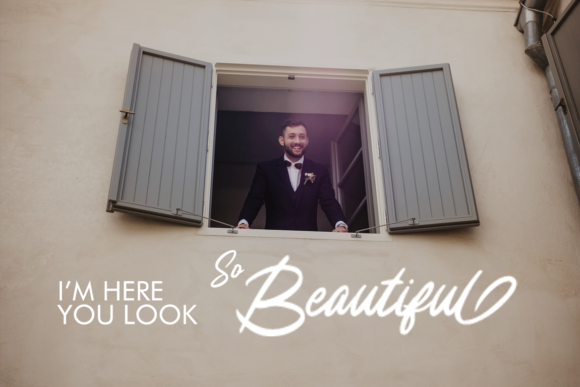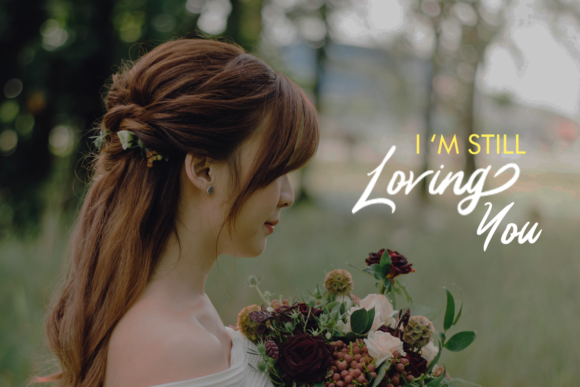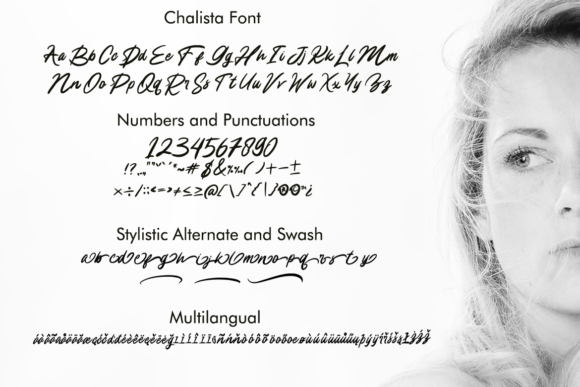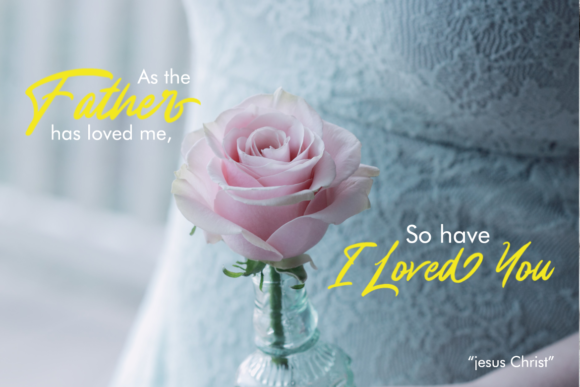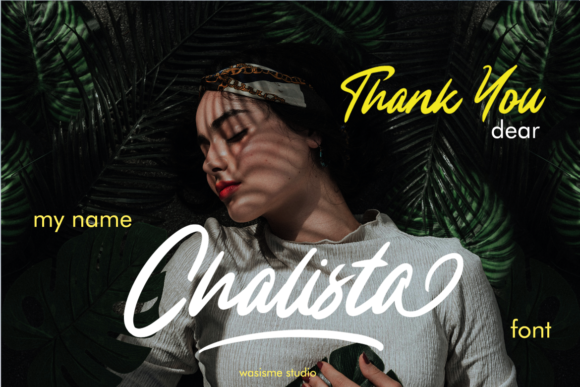
Introduction to Chalista Font
Do you remember that moment when you were browsing through design resources, searching for the perfect font to make your project stand out? The search can be overwhelming, but sometimes, it’s a stroke of luck that leads you to the perfect match. For many designers, that moment came when they stumbled upon the Chalista Font. This magical handwritten font is a game-changer for any creative project, from wedding cards to birthday invitations.
What makes the Chalista Font so special? Its elegant and timeless feel is unmatched, giving your designs a high-quality touch that’s hard to resist. With a transparent background, this font is versatile and can be easily paired with any design element. Whether you’re working on a free download or a paid project, the Chalista Font is a valuable asset that will elevate your designs to the next level.
As a designer, having access to a unique and high-quality font like Chalista Font can be a dream come true. It’s a design resource that will help you stand out from the crowd and take your creative projects to new heights. In this article, we’ll dive deeper into the world of Chalista Font and explore its features, uses, and benefits for designers like you.
Key Features of Chalista Font
- High-quality font design with a unique, elegant style, perfect for creative projects.
- Transparent background, allowing for easy customization and blending with any design.
- Features a clean, modern design with a large character set, ideal for a wide range of creative projects.
- Supports various languages, including Latin, making it a versatile design resource.
Honest Review: Chalista Font
I recently had the chance to try out the Chalista Font, a high-quality design resource that’s perfect for creative projects. Initially, I was drawn to its unique aesthetic and the fact that it’s available for free download.
One of the things that works well with the Chalista Font is its transparent background. This makes it incredibly versatile and easy to customize, allowing designers to integrate it seamlessly into their work.
Some of the standout features of the Chalista Font include:
- Its modern and elegant design, making it perfect for a wide range of creative projects.
- Its high quality, making it suitable for both personal and professional use.
While the Chalista Font is an excellent addition to any design resource library, there are a few limitations to be aware of:
- ⚠️ Limited language support, which may be a concern for designers working on multilingual projects.
- ⚠️ Some users have reported issues with font rendering, particularly at smaller font sizes.
Overall, I’m impressed with the Chalista Font and would highly recommend it to designers looking for a high-quality, free design resource. With a little caution regarding its limitations, I believe the Chalista Font has the potential to become a go-to choice for many creative projects.
To get the most out of Chalista Font, use it on a transparent background to create a sleek and modern design look. You can also combine Chalista Font with other design elements, such as icons and graphics, to create a visually appealing design.
Chalista Font is ideal for use in various creative projects, including logos, brochures, business cards, and social media graphics. Its high quality and versatility make it a popular choice among designers and artists.